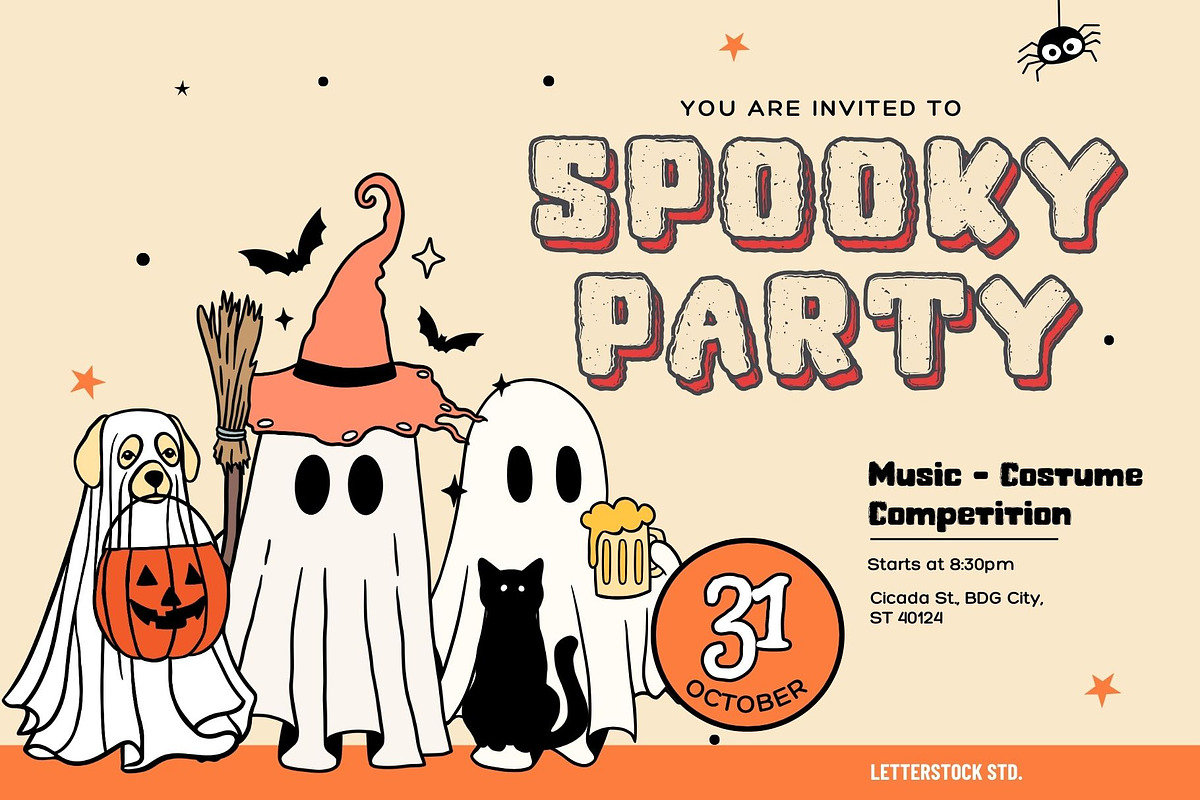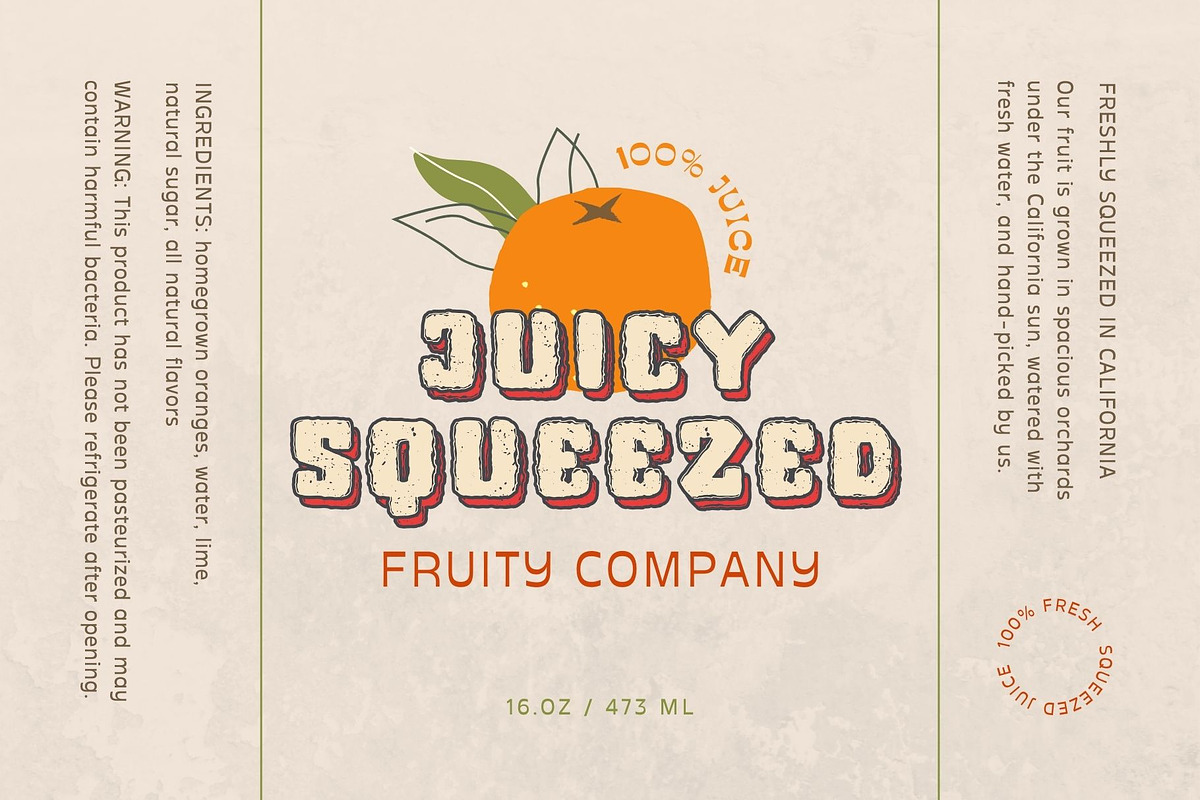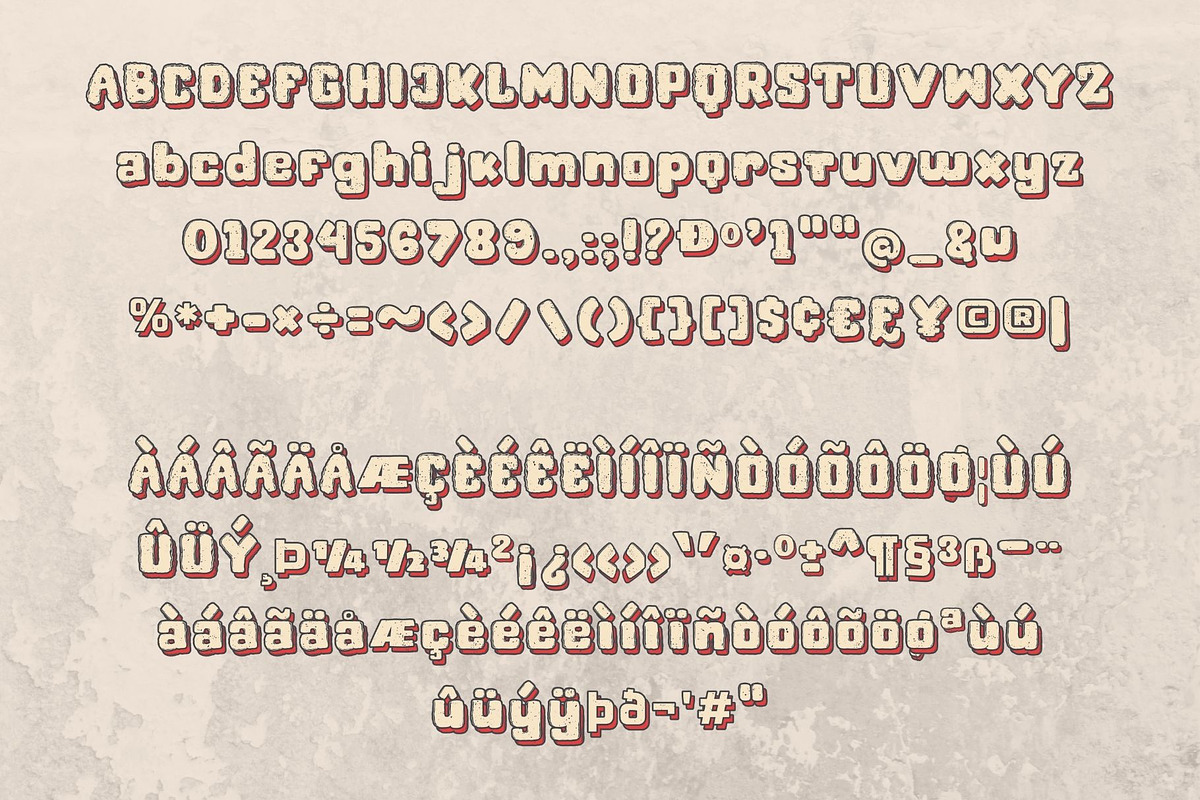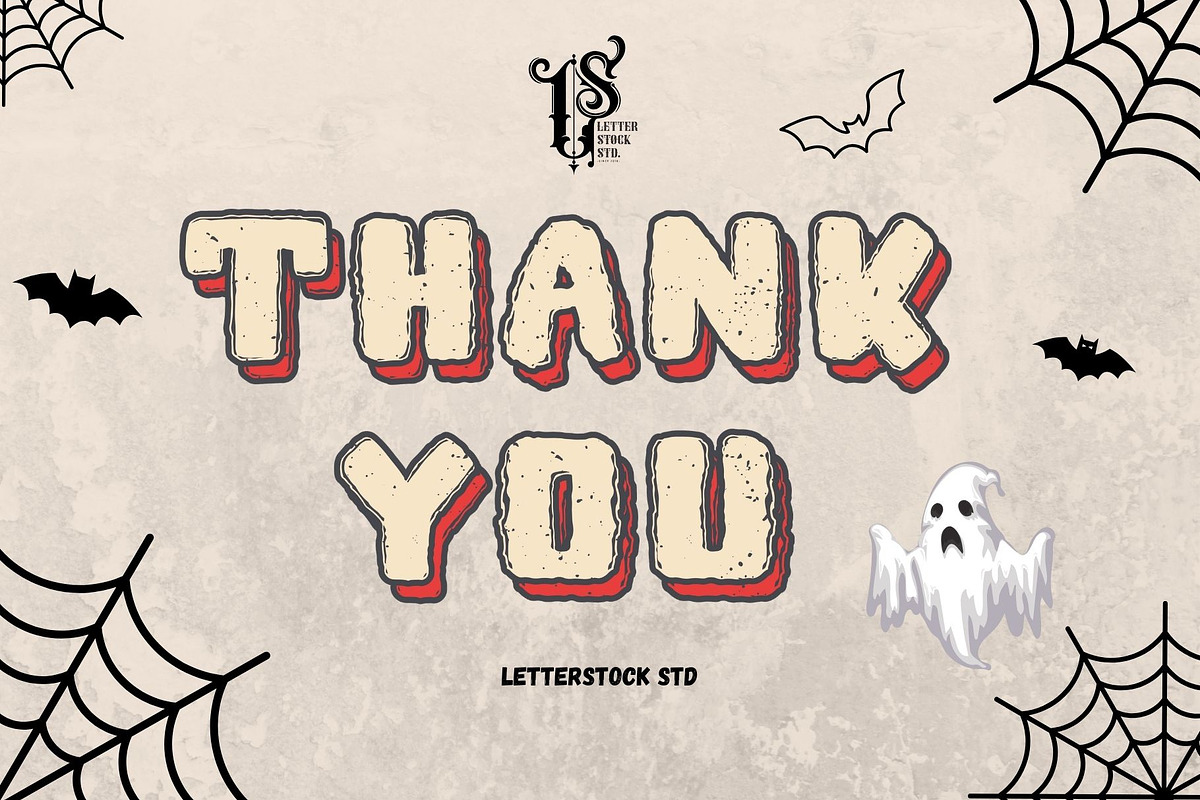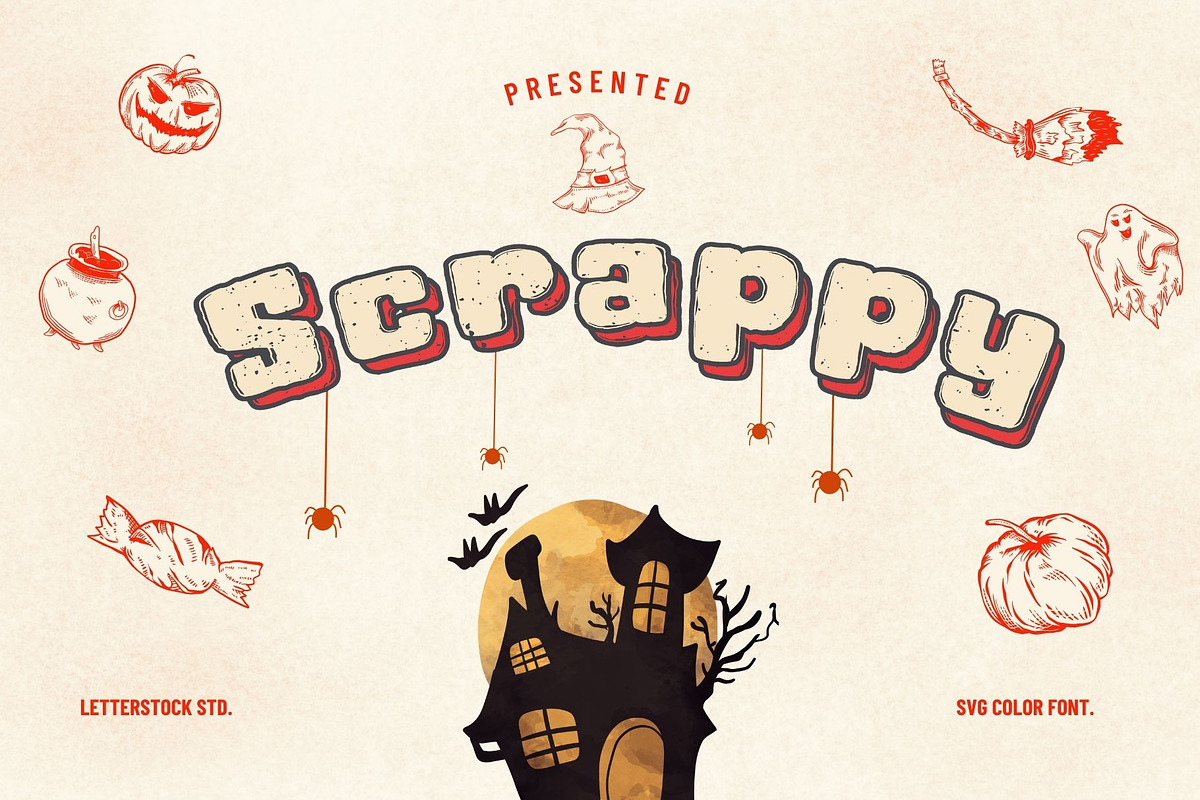
Scrappy
Introducing “Scrappy” – The Retro Grunge SVG Color Font
Dive into the nostalgic embrace of ‘Scrappy,’ a unique SVG color font that beautifully combines grunge texture with a retro twist. With a preview that channels the spirit of Halloween and retro aesthetics, this font is your ticket to crafting eye-catching and unforgettable designs.
Retro Grunge Aesthetics: ‘Scrappy’ brings together the edgy charm of grunge texture and the timeless appeal of retro design. Vivid SVG Colors: Infuse your projects with vibrant colors and add a touch of nostalgia with this SVG color font.
Create designs that stand out with a font that’s a perfect blend of vintage and grunge. Ideal for Halloween-themed projects, posters, invitations, and any design that demands attention.